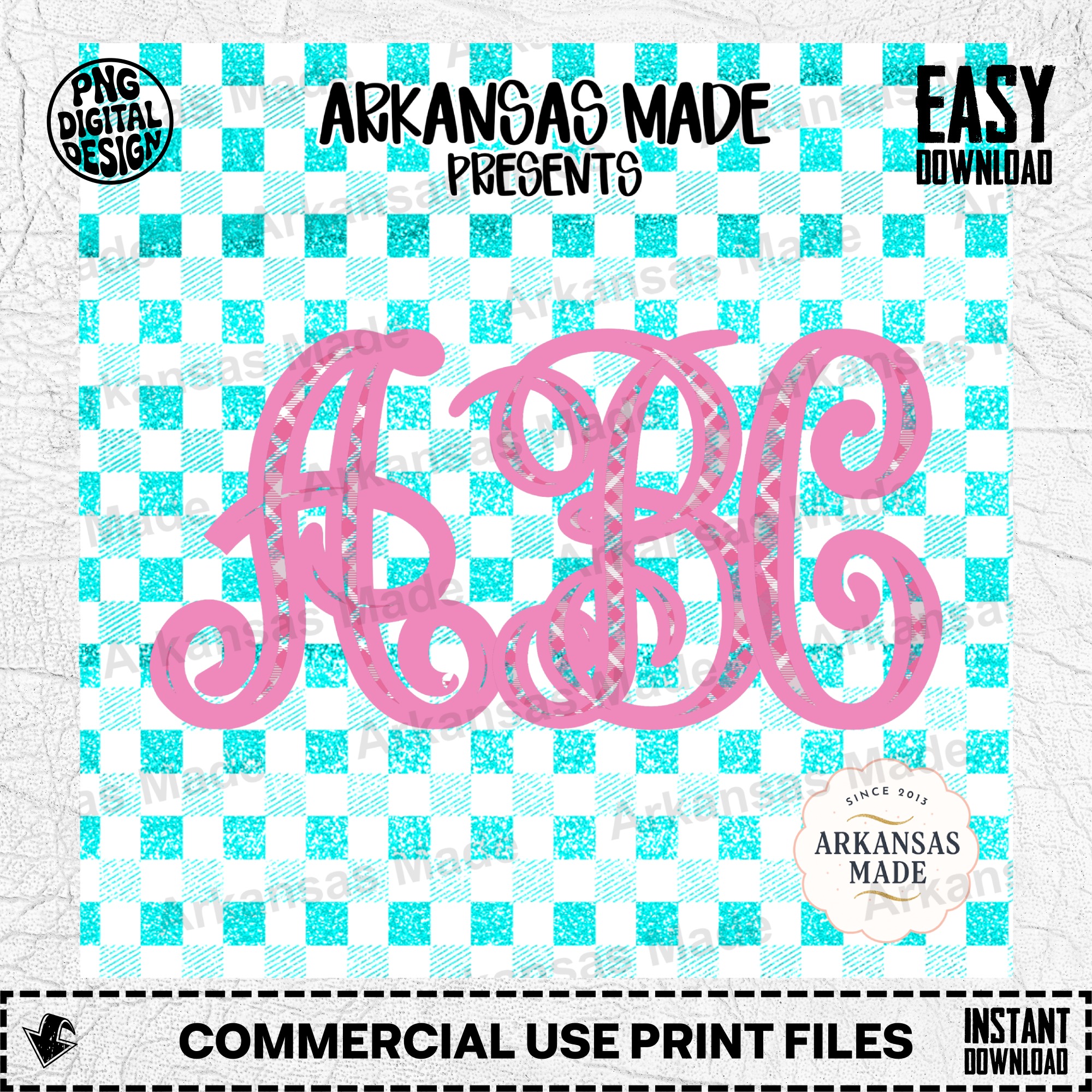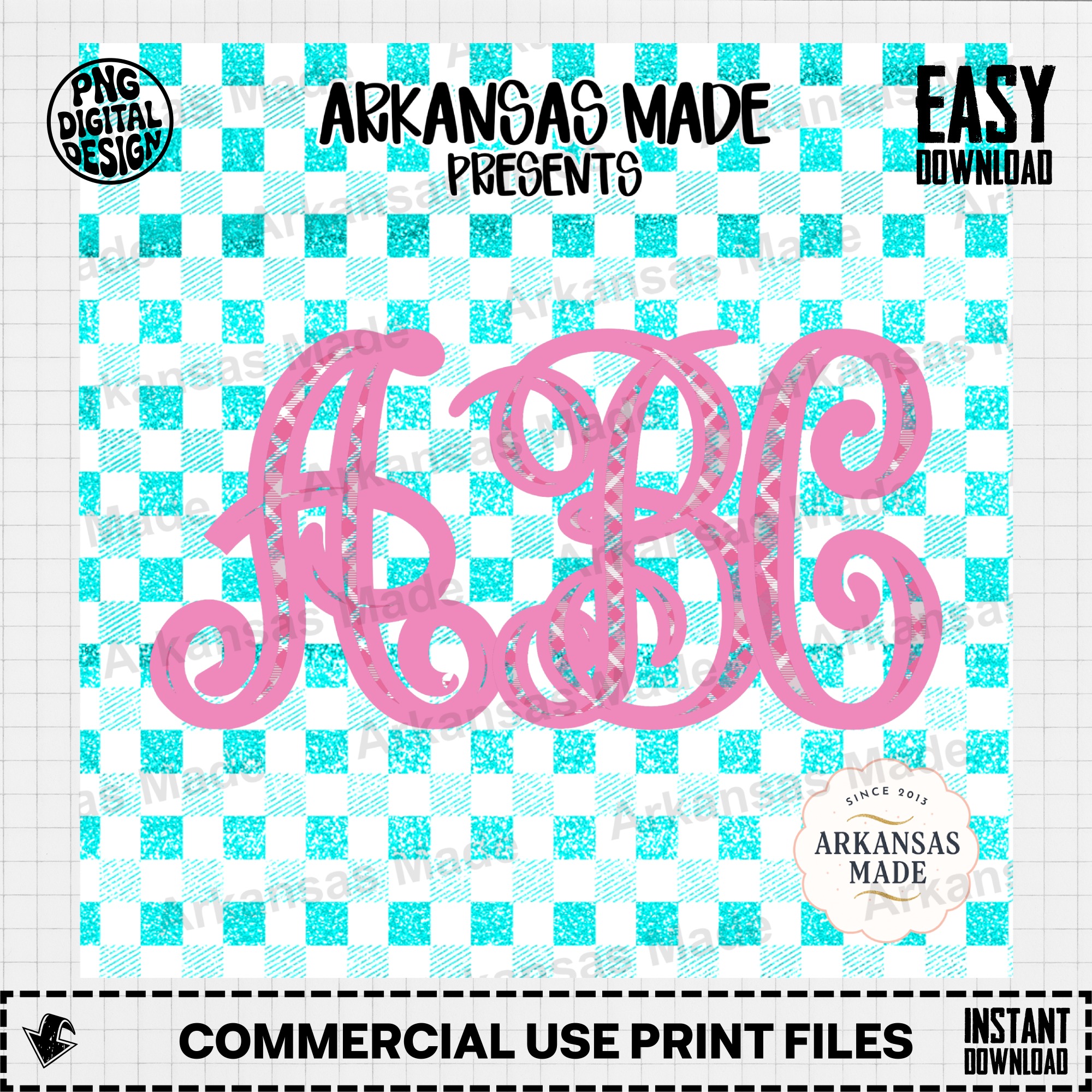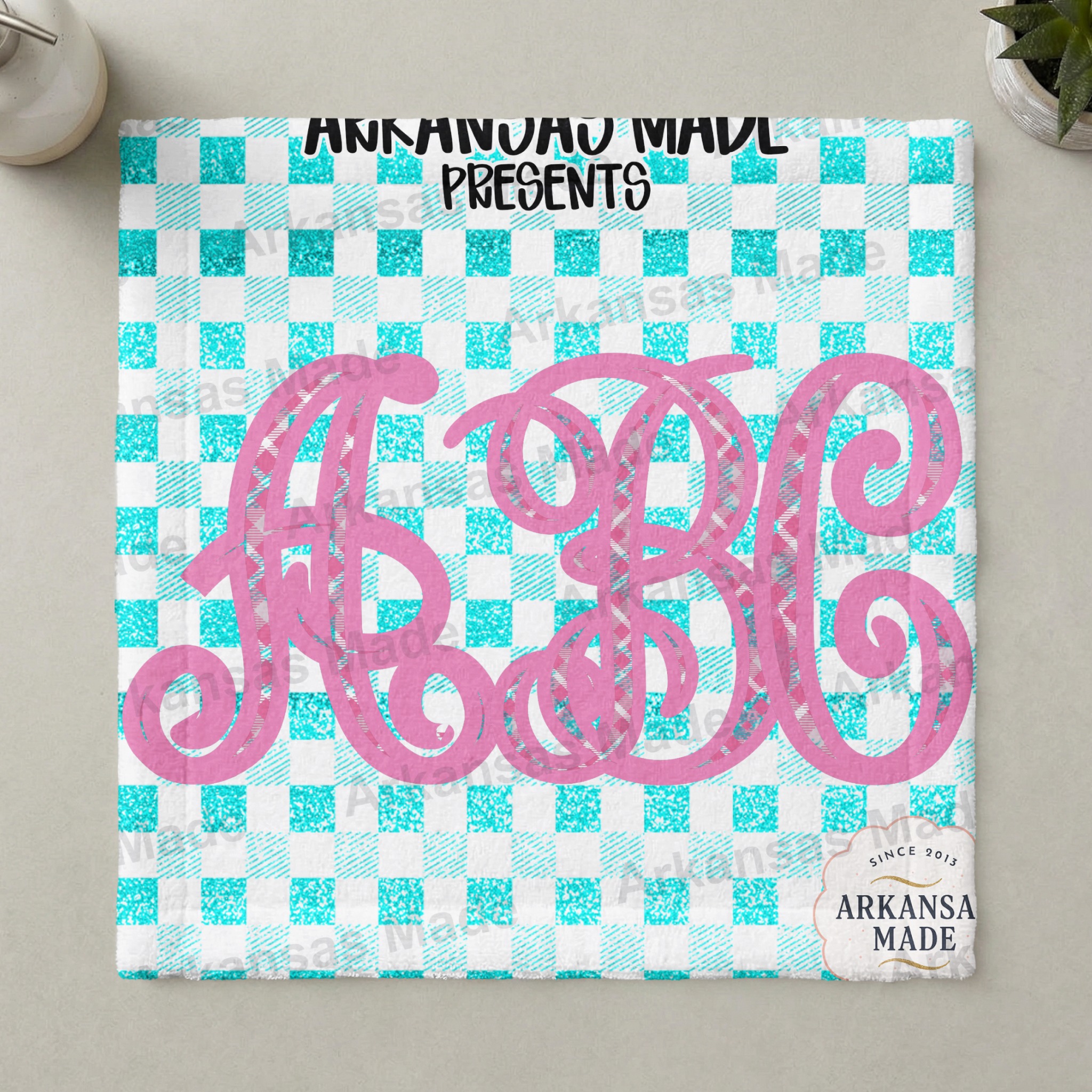
Elevate your creations with this stunning Pink Plaid Glitter Monogram Alpha Set Digital Download. Perfect for personalized gifts, apparel, and DIY projects! This versatile alphabet features elegant script letters adorned with a chic pink faux plaid texture, set against a vibrant teal faux glitter gingham background. Ideal for crafters, small business owners, and those who love a touch of Southern charm, these files make perfect elements for custom t-shirts, tumblers, invitations, and nursery art. A wonderful addition to gifts for bridesmaids, birthdays, sorority sisters, or anyone who appreciates unique personalized designs.